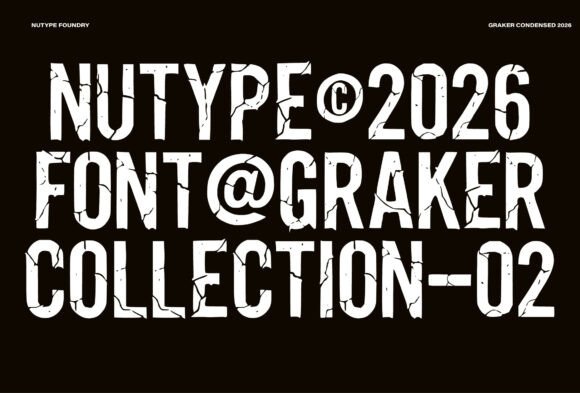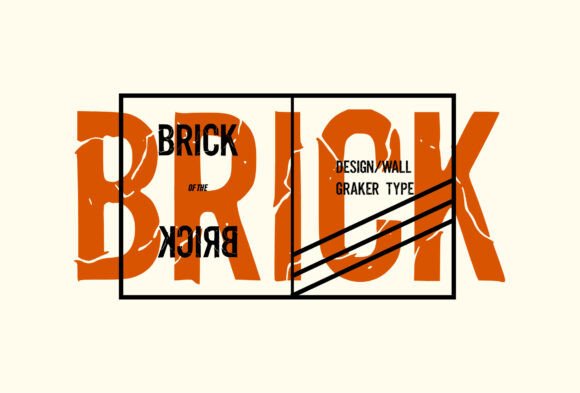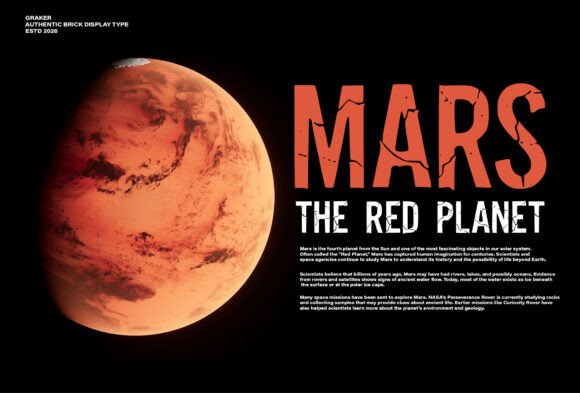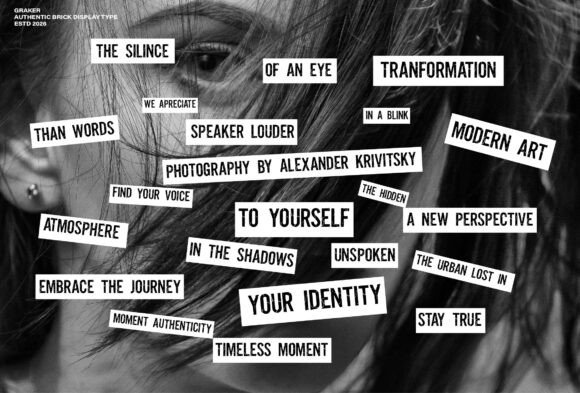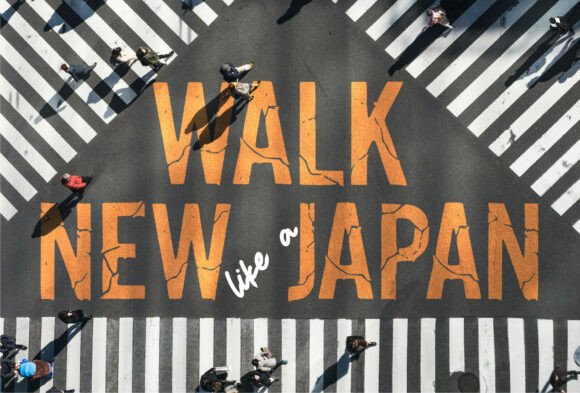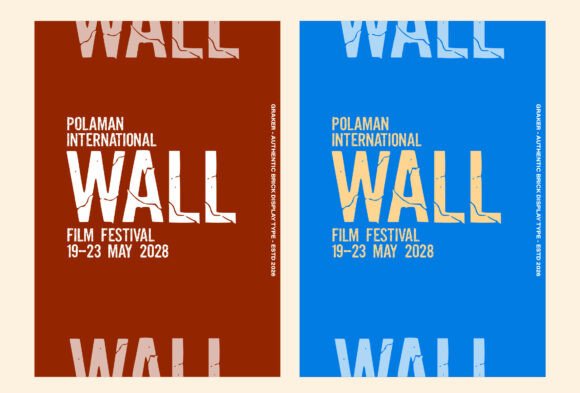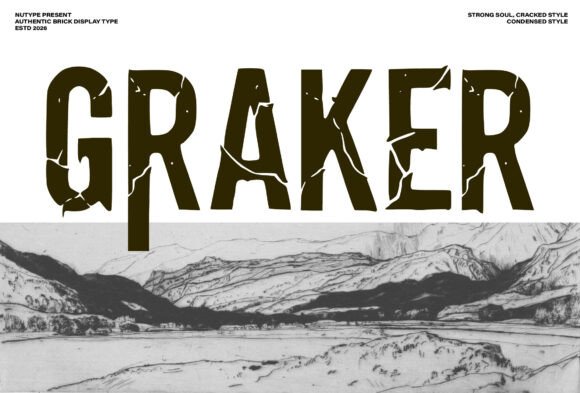
Introducing Graker Font: The Ultimate Display Typeface for Bold Statements
In the world of typography, a font can make or break the visual impact of a design project. For designers and crafters looking for a bold and dramatic typographic presence, Graker Font is the perfect solution. Inspired by cracked brick textures and rugged industrial aesthetics, Graker is a display typeface that exudes strength, toughness, and power.
The Inspiration Behind Graker
Graker’s design is rooted in the authentic crack effects that give each letter a realistic broken-stone appearance. The font’s creator aimed to capture the essence of industrial, rugged textures and translate them into a typographic form that is both visually striking and highly legible. The result is a font that looks like it’s been chiseled out of stone, with cracks and imperfections that add to its character.
Key Features of Graker Font
- Bold and Dramatic: Graker is designed to make a statement. Its bold strokes and dramatic crack effects make it perfect for headlines, titles, and any other text that needs to grab attention.
- Authentic Texture: Each letter in Graker features authentic crack effects that give it a realistic, broken-stone appearance. This unique texture sets Graker apart from other display typefaces.
- Excellent Readability: Despite its bold and dramatic design, Graker maintains excellent readability. This makes it suitable for a wide range of projects, from posters and flyers to logos and branding materials.
- Industrial Aesthetic: Graker’s industrial aesthetic makes it perfect for projects that require a strong, tough, and rugged typographic presence.
Use Cases for Graker Font
Graker’s versatility makes it suitable for a wide range of design projects. Here are some use cases where Graker can make a significant impact:
- Posters and Flyers: Graker’s bold and dramatic design makes it perfect for posters and flyers that need to grab attention.
- Logos and Branding: Graker’s industrial aesthetic and authentic texture make it an excellent choice for logos and branding materials that require a strong, tough, and rugged typographic presence.
- Headlines and Titles: Graker’s bold strokes and dramatic crack effects make it perfect for headlines and titles that need to make a statement.
- Packaging Design: Graker’s unique texture and industrial aesthetic make it suitable for packaging design projects that require a bold and attention-grabbing typographic presence.
Why Choose Graker Font?
With so many display typefaces available, why choose Graker? Here are a few reasons why Graker stands out from the crowd:
- Unique Texture: Graker’s authentic crack effects and realistic broken-stone appearance make it a unique and distinctive font.
- Excellent Readability: Graker’s bold and dramatic design does not compromise on readability, making it suitable for a wide range of projects.
- Industrial Aesthetic: Graker’s industrial aesthetic makes it perfect for projects that require a strong, tough, and rugged typographic presence.
In conclusion, Graker Font is the perfect choice for designers and crafters looking for a bold and dramatic typographic presence. Its unique texture, excellent readability, and industrial aesthetic make it suitable for a wide range of design projects. Whether you’re working on a poster, logo, or packaging design, Graker is the perfect font to make a statement.